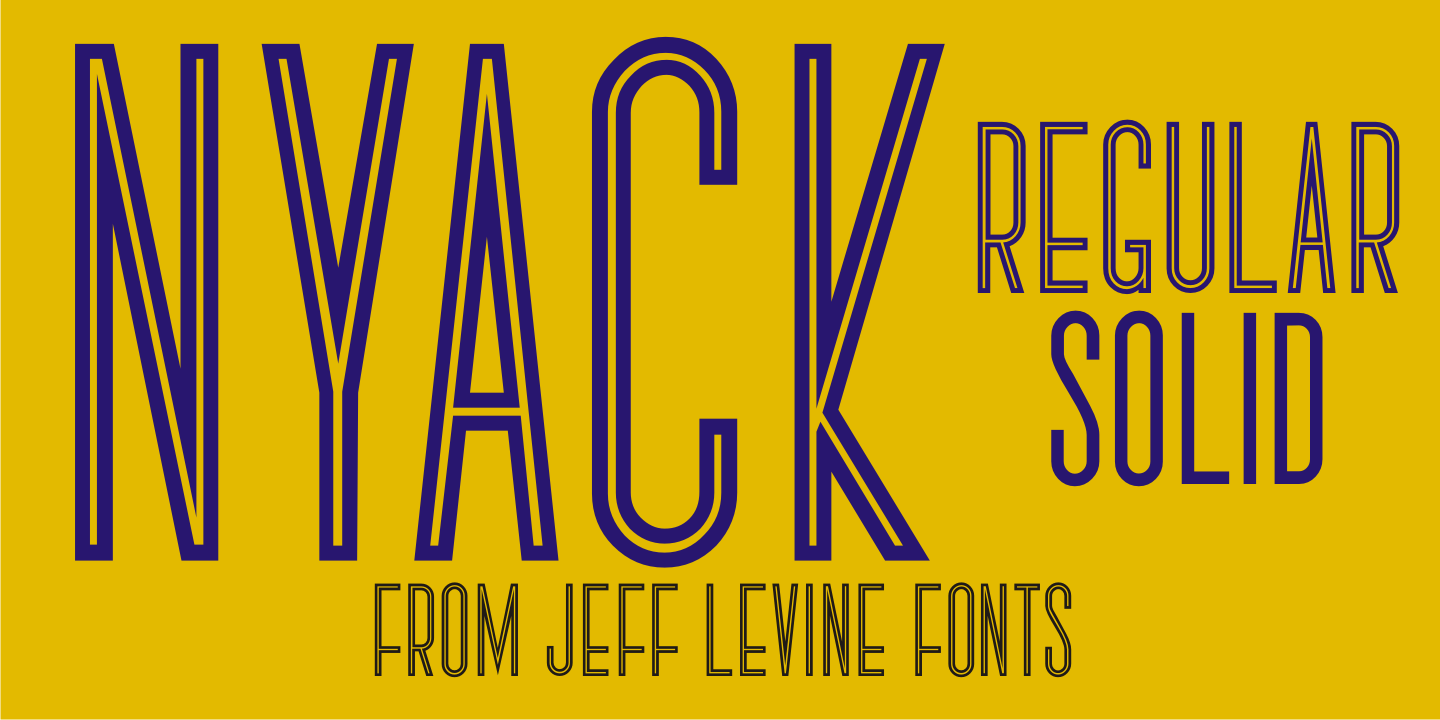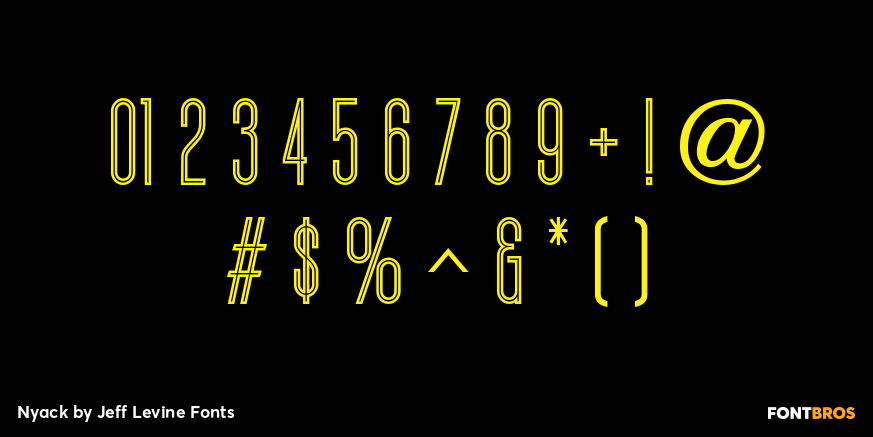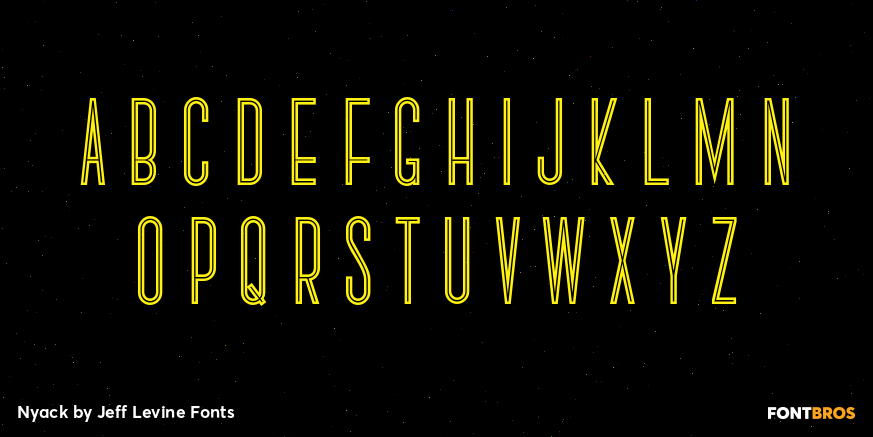
Nyack
Nyack is a built-from-scratch sanserif font with both inline and solid versions. There's a touch of Art Deco to its design for a touch of past elegance, but its use is not limited to retro projects.